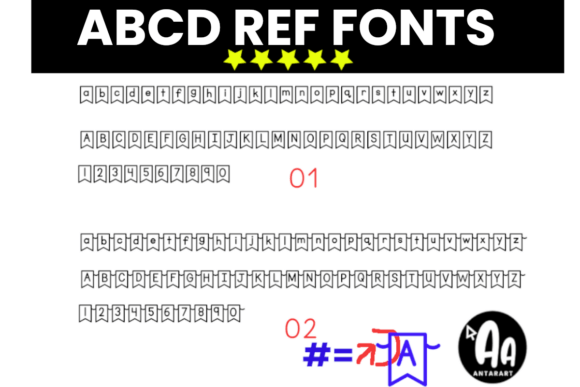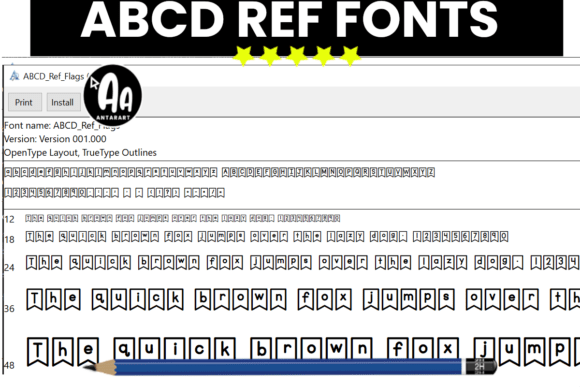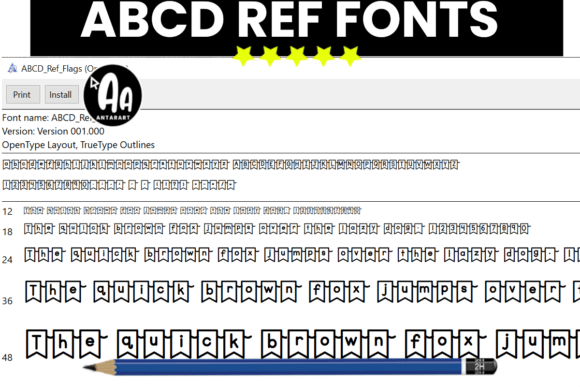
Unleash the Fun: Introducing Abcd Ref Banner Font
Have you ever stood in front of a bulletin board, brainstorming the perfect way to welcome students back to school or announce a birthday celebration? The excitement is palpable, and the right font can make all the difference. That’s where the Abcd Ref Banner Font comes in – a playful, colorful font that’s perfect for adding a pop of fun to your designs.
This versatile font is designed to sit inside vibrant flag shapes, creating a pennant-style effect that’s ideal for banners, bulletin boards, and classroom decor. With its bold outlines and charming letterforms, the Abcd Ref Banner Font brings instant visual appeal to any festive setting. As a designer, you’ll appreciate the flexibility and creativity this font offers, making it a valuable addition to your design toolkit.
Key Features of ABCD Ref Banner Font
• Font Family: ABCD Ref Banner Font is a unique, bold, and elegant font designed for headings and titles.
• Unique Characteristics: Features a distinctive, hand-drawn feel with subtle flourishes and ornaments, adding a touch of sophistication to any design.
Abcd Ref Banner Font Review
Overall, I think Abcd Ref Banner Font is a decent option for a specific type of project, but it’s not a one-size-fits-all solution. Here are some of its strengths and weaknesses:
• The font is highly customizable, with a wide range of options for color, size, and spacing.
• It’s optimized for digital displays, which means it looks great on screens and doesn’t lose its clarity at small sizes.
• The font family is quite extensive, with multiple weights and styles to choose from.
• The font can feel a bit sterile or generic in certain contexts, particularly when used for body text.
• It may not be the best choice for projects that require a high level of emotional resonance or personality.
• The font’s customization options can be overwhelming for beginners or those with limited design experience.
Overall, I’d recommend Abcd Ref Banner Font for projects that require a clean, modern aesthetic and a high level of flexibility in terms of customization. However, it may not be the best fit for projects that require a more emotive or distinctive tone.
The Abcd Ref Banner Font is commonly used for:
• Creating eye-catching titles and headings.
• Designing modern and sleek logos.
• Adding a touch of sophistication to presentations and documents.
For optimal results, use the Abcd Ref Banner Font in combination with bold colors and clean layouts. Experiment with different font sizes and styles to create visual interest.
Alternatives to Abcd Ref Banner Font
Open Sans is a clean, modern sans-serif font that works well for digital applications. It’s highly legible and comes in a variety of weights, making it a great choice for headers and body text. Use Open Sans when you want a clean, professional look that’s easy to read on screens.
Compared to Abcd Ref Banner Font, Open Sans is more versatile and has a wider range of weights, making it a better choice for body text and other applications. However, Abcd Ref Banner Font has a more unique, retro feel that may be more suitable for certain designs.
Lato is a sans-serif font with a strong, modern feel that’s perfect for digital applications. It’s highly legible and comes in a variety of weights, making it a great choice for headers and body text. Use Lato when you want a clean, modern look that’s easy to read on screens.